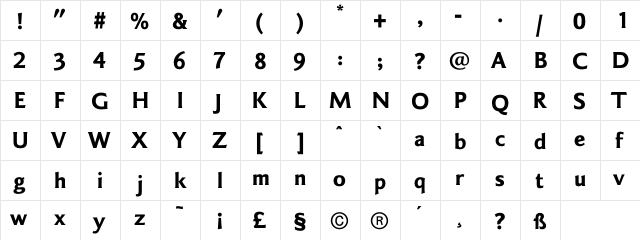
ChaseXBd Regular
Design Context for ChaseXBd Typeface
ChaseXBd takes a measured approach to typography — its balanced proportions and neutral character make it a reliable workhorse for both digital and print work. The heavy weight commands attention and anchors typographic hierarchies.